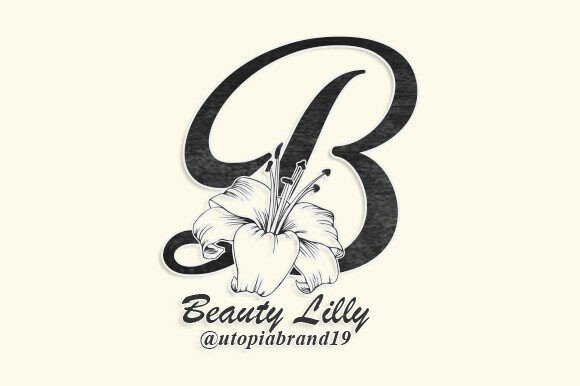
The Elegance of Beauty Lilly Font
As a designer, there’s a moment when a project clicks, and the entire aesthetic falls into place. It’s a rush of inspiration, a dash of creativity, and a pinch of style. And for those who crave the epitome of sophistication, there’s a font that embodies this very essence – Beauty Lilly Font.
With its flowing, hand-drawn letterforms and refined, airy weight, Beauty Lilly Font is the perfect choice for designers seeking to exude timeless elegance. This luxurious-botanical typeface is characterized by its smooth cursive transitions and classic rhythm, making it a sought-after option for upscale cosmetic packaging, independent jewelry branding, and bridal invitation suites.
For designers, Beauty Lilly Font is a valuable asset, offering a unique blend of style and sophistication that sets projects apart from the ordinary. Its versatility and organic elegance make it an ideal choice for a range of applications, from luxury-spa social media headers to high-end boutique branding.
Key Features of Beauty Lilly Font
- Unique Characteristics: Beauty Lilly Font features a delicate, hand-drawn design with intricate details and subtle texture, giving it a romantic and elegant feel.
Beauty Lilly Font Review
As a designer, I had the chance to work with the Beauty Lilly Font, and I must say it’s a unique and lovely addition to any design project. ✨
The font is characterized by elegant, flowing lines and a delicate aesthetic that’s perfect for feminine designs, wedding invitations, or any project that requires a touch of sophistication. ✨
- Highly legible and readable, even at small font sizes.
- Perfect for body text or headings that require a touch of elegance.
- Great for projects that require a feminine or vintage feel.
However, like any font, Beauty Lilly has its limitations. ⚠️
- Not ideal for projects that require a bold or strong font, as it can come across as too delicate.
- May not be suitable for projects with a lot of bold or italic text, as it can be difficult to read.
- Not as versatile as some other fonts, and may not work well in all design contexts.
Overall, I think Beauty Lilly is a great addition to any designer’s toolkit. While it may not be perfect for every project, it’s a lovely font that can add a touch of elegance and sophistication to a design. With some careful consideration and selection, Beauty Lilly can be a real showstopper.
The Beauty Lilly Font is perfect for:
- Floral-themed designs and branding
- Quirky and playful designs
For the best results, use the Beauty Lilly Font in conjunction with:
- Soft, pastel colors
- Delicate illustrations and graphics
- Whimsical and playful design elements